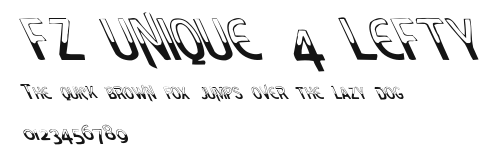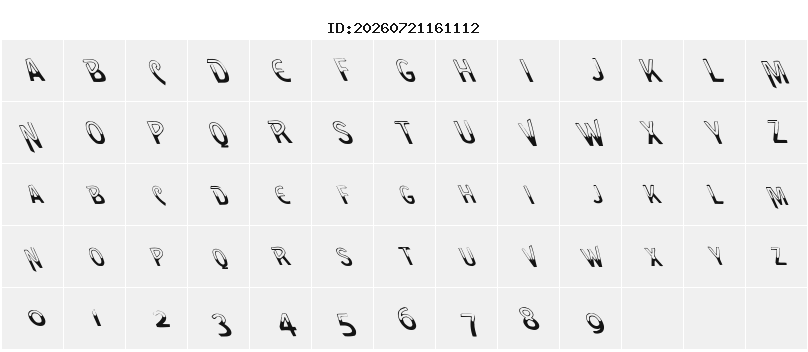
About FZ UNIQUE 4 LEFTY.ttf
FZ UNIQUE 4 LEFTY.ttf is a modern, elegant sans-serif font designed for ultimate readability and visual harmony. Perfect for branding, headlines, web design, and print materials.